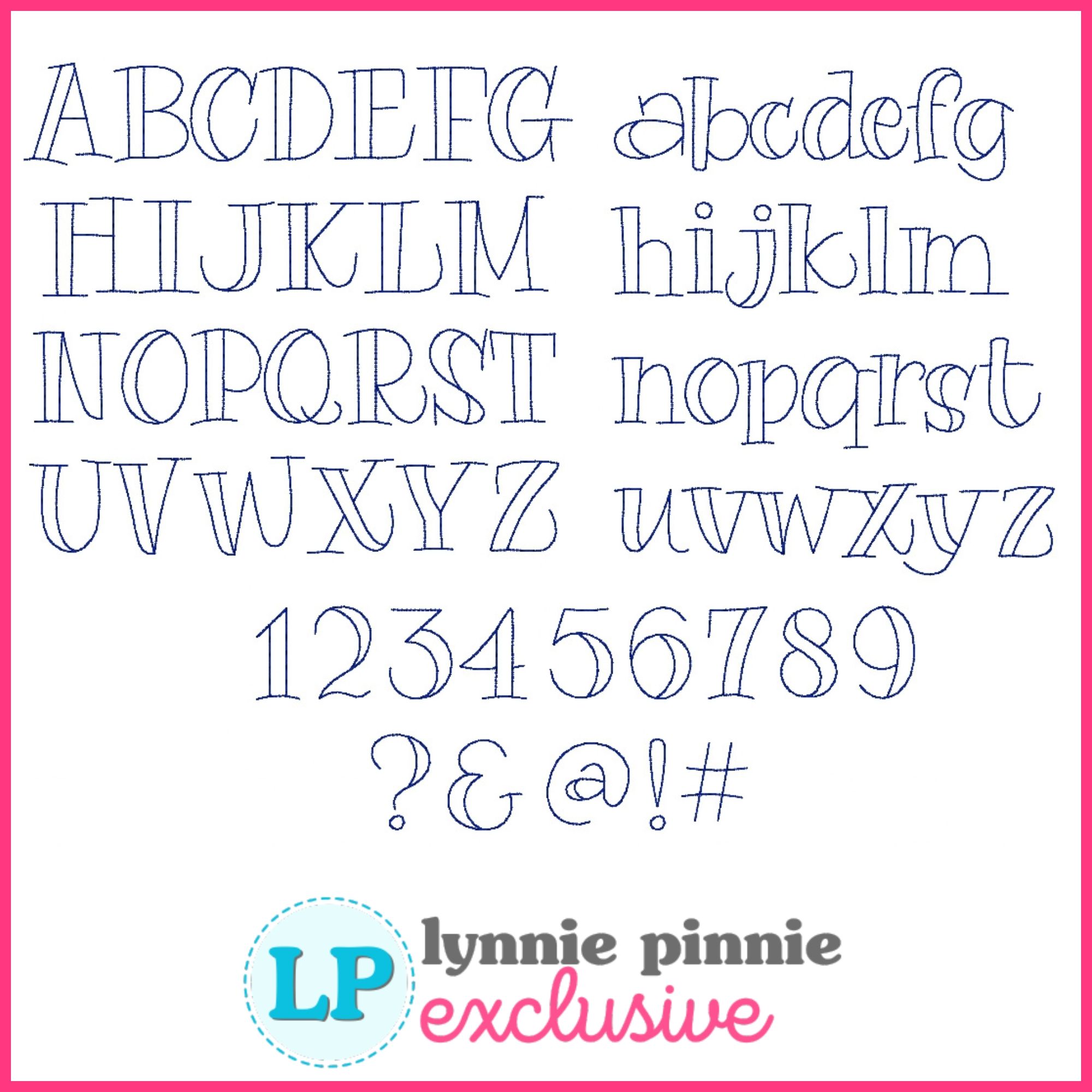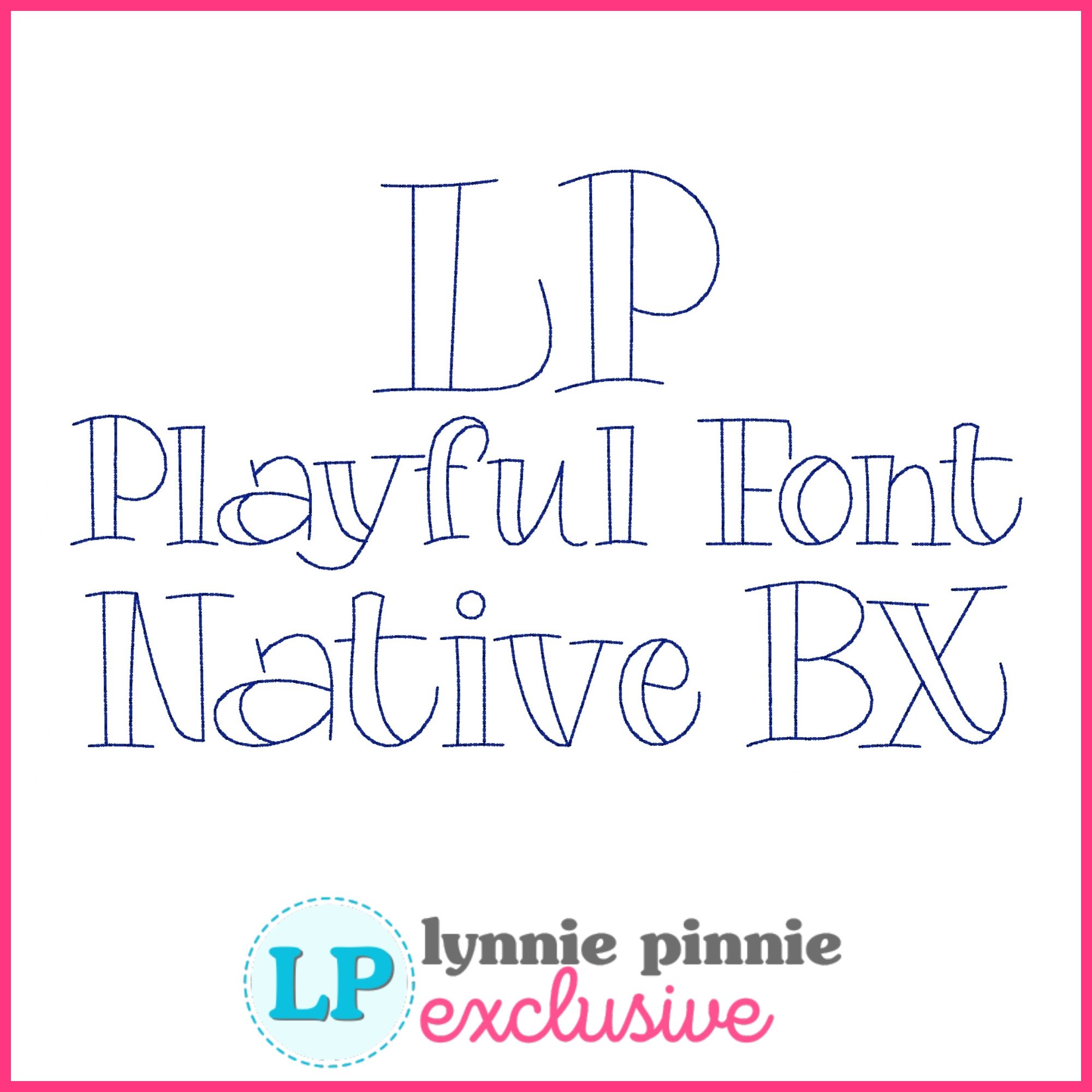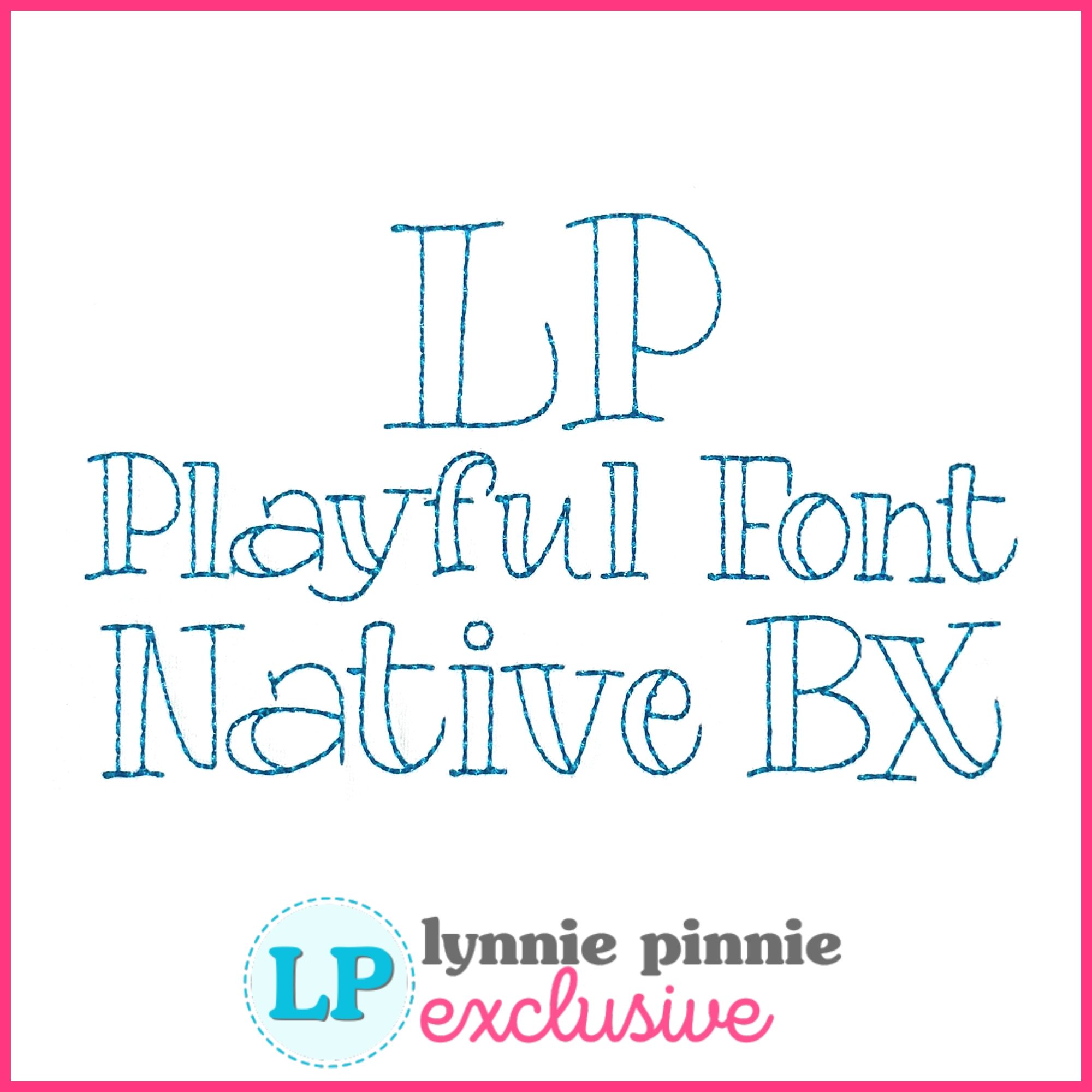
Playful 2 Color Outlined Stitch Machine Embroidery Font – 6 Sizes + Scalable Native BX File
Playful 2-Color is a bold and fun machine embroidery font featuring a smooth satin stitch fill and a clean contrasting outline.
Includes uppercase, lowercase, numbers, and punctuation for endless creative combinations — perfect for names, monograms, kids' gifts, or colorful boutique-style projects.